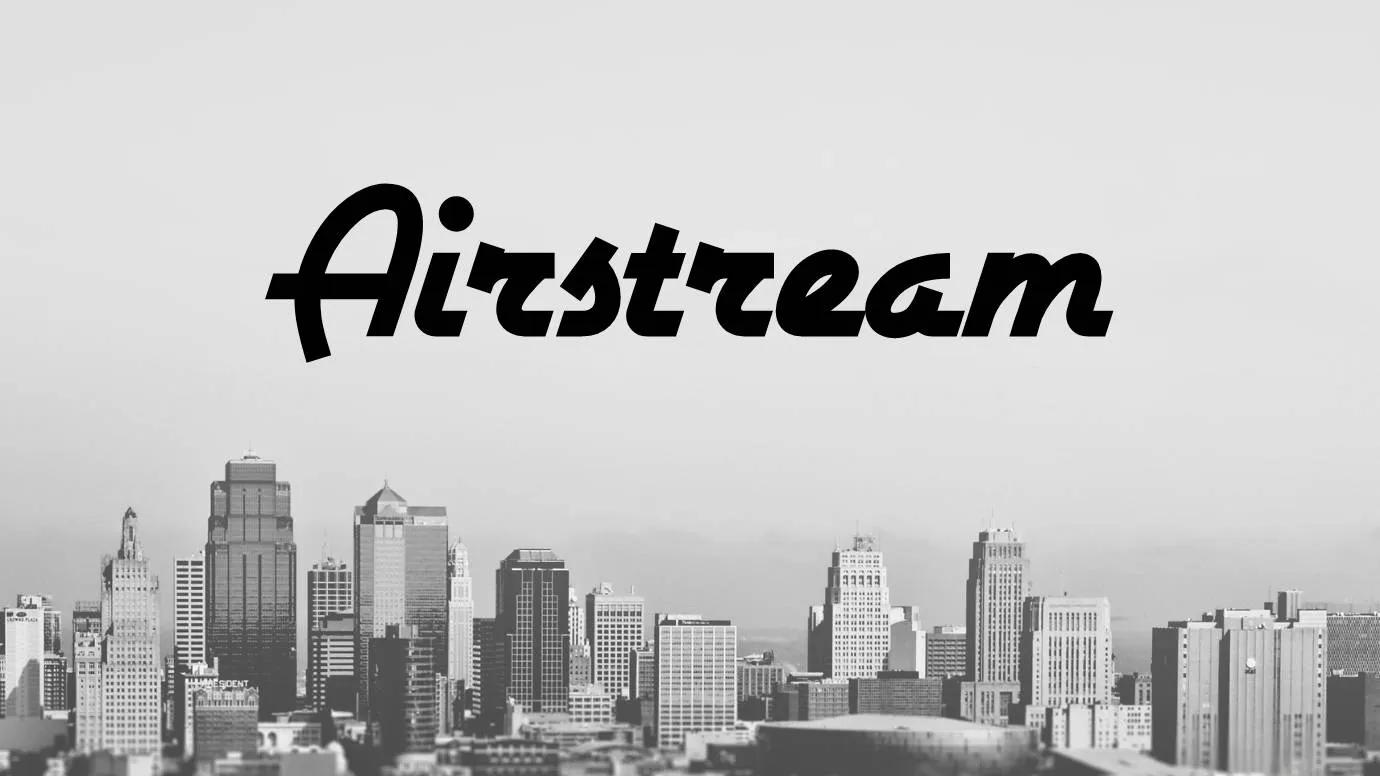
Airstream Font Family is a modern retro display texture Font. This fantastic texture lies in the category of the fancy family of fonts. A very intelligent designer Nick Curtis work to design this classic typeface.
If we check its alternative then cartoon fancy font is similar to this typography. The main thing is that this font family supports different languages.